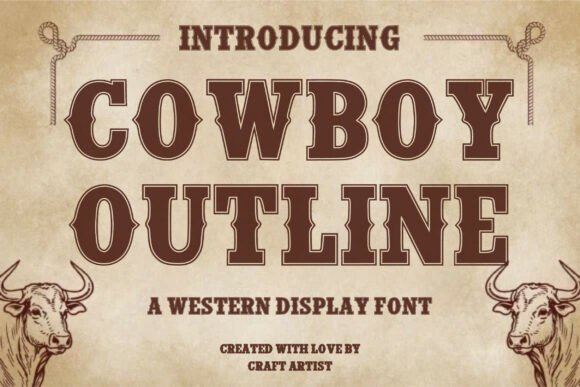
Cowboy Outline: A Bold Western Display Font
When a design needs to communicate ruggedness, history, and the untamed spirit of the American frontier, standard serif or sans-serif typefaces often fall flat. They lack the texture and narrative weight required to evoke the Wild West. This is where Cowboy Outline steps in as a powerful typographic tool. It is not merely a collection of letters; it is a visual shorthand for adventure, durability, and classic Americana. For designers, small business owners, and creative professionals, selecting the right display font can make the difference between a project that feels generic and one that resonates deeply with its audience. Cowboy Outline offers a distinct aesthetic characterized by strong block letters and clean outline detailing, providing an authentic handcrafted look that stands out immediately.
Understanding the Visual Impact of Cowboy Outline
The defining characteristic of Cowboy Outline lies in its construction. Unlike filled-in heavy fonts that can sometimes feel oppressive on the page, this typeface utilizes a hollow or outlined structure. This design choice serves a dual purpose: it maintains the bold presence necessary for headlines while allowing for greater versatility in coloring and layering. The blocky nature of the characters suggests stability and strength, reminiscent of the wooden signs found in old mining towns or the ironwork on vintage saloons.
This specific style bridges the gap between modern digital clarity and historical charm. The clean lines ensure that the text remains legible even at smaller sizes, which is crucial for web applications and mobile interfaces. However, when scaled up for posters or banners, the intricate detailing within the outlines adds a level of sophistication that simple "western" clip-art fonts cannot match. By choosing Cowboy Outline, creators are opting for a typeface that respects the heritage of Western typography while adhering to contemporary design standards.
Enhancing Brand Identity for Western-Themed Businesses
For entrepreneurs launching businesses rooted in Western culture, such as ranches, distilleries, outdoor gear shops, or barbecue restaurants, branding is everything. The logo must instantly convey the brand's story. Cowboy Outline is particularly effective for creating logos that feel established and trustworthy. The bold strokes suggest reliability, while the outline style invites customization. Designers can fill the negative space with textures like wood grain, leather, or distressed metal effects, making the logo unique to the brand.
Consider a local brewery releasing a new line of craft beers inspired by cowboy trails. Using a standard font might result in a label that looks like any other mass-produced beverage. However, applying Cowboy Outline to the label design immediately signals a connection to tradition and craftsmanship. It tells the consumer that the product inside has character. This typeface helps businesses cut through the noise of a crowded market by establishing a clear, memorable visual identity that aligns perfectly with their niche.
Practical Applications in Marketing Materials
- Vintage Posters: Event organizers hosting rodeos, country music festivals, or historical reenactments can use this font to create eye-catching posters. The outline allows for double-stroking effects or drop shadows that mimic the depth of old lithographs.
- Rustic Signage: Physical signage for farms, wineries, or cabins benefits from the blocky structure. When printed on weathered wood or painted on brick, the font retains its readability and charm.
- Product Packaging: Labels for artisanal goods, such as hot sauces, jerky, or leather accessories, gain a premium feel when paired with this typography. It elevates the perceived value of the product.
Streamlining Creative Workflows for Designers
One of the most significant yet often overlooked benefits of using a well-crafted font like Cowboy Outline is the efficiency it brings to the design process. Creating custom lettering from scratch that mimics the Wild West aesthetic requires hours of sketching, digitizing, and refining. Each letter must be balanced to look consistent while maintaining a hand-drawn feel. By utilizing Cowboy Outline, designers save substantial time that can be redirected toward layout, color theory, and overall composition.
Furthermore, the font's consistency ensures that long headers or multi-line titles do not look disjointed. In many free or low-quality western fonts, kerning issues or inconsistent stroke widths can ruin a professional layout. Cowboy Outline provides a polished foundation, reducing the need for tedious manual adjustments. This reliability is essential for freelancers and agencies working under tight deadlines, ensuring high-quality output without compromising on speed.
Empowering DIY Enthusiasts and Hobbyists
The appeal of Cowboy Outline extends beyond professional studios to hobbyists and makers who enjoy crafting personalized gifts or home decor. Whether creating t-shirt designs for a family reunion, badges for a costume party, or decorative wall art for a game room, this font offers an accessible way to achieve a professional look. Its clear outlines make it forgiving for those using vinyl cutters or screen printing techniques, as the shapes are distinct and less prone to errors during the transfer process.
For educators or community leaders organizing themed events, the font simplifies the creation of materials that engage participants. A classroom unit on American history becomes more immersive when worksheets and presentations feature authentic-looking typography. Similarly, scrapbookers can use it to title pages dedicated to travel adventures or genealogy projects involving ancestors from the frontier era. The font acts as a bridge, allowing non-designers to express creativity with confidence.
Conclusion on Typography Choices
Selecting the right typeface is a critical decision that influences how a message is received. Cowboy Outline offers a robust solution for those seeking to inject personality, history, and rugged charm into their visual communications. From strengthening brand identities for Western-themed enterprises to streamlining workflows for professional designers and empowering hobbyists with high-quality tools, its utility is broad. By understanding its strengths and limitations, creators can leverage this bold, outlined font to produce work that is not only visually striking but also meaningful and effective.